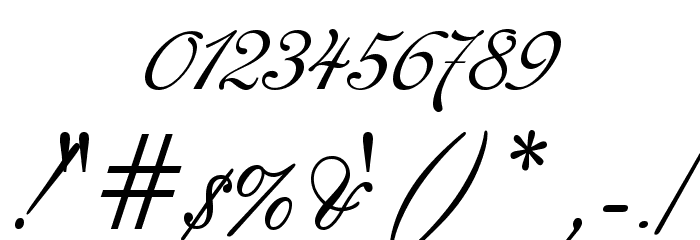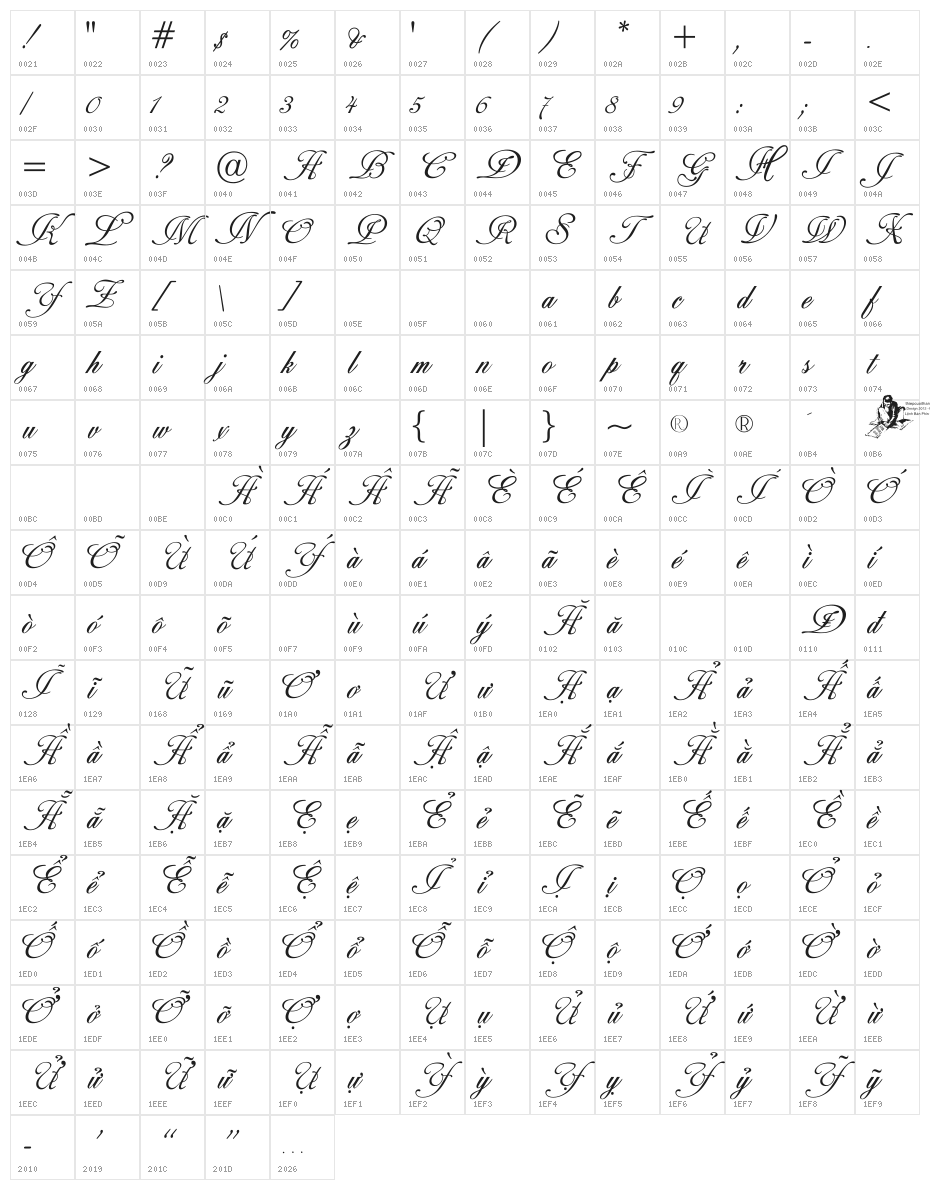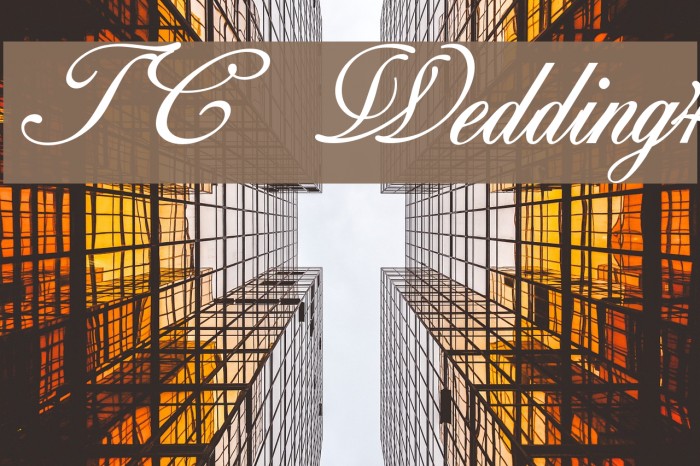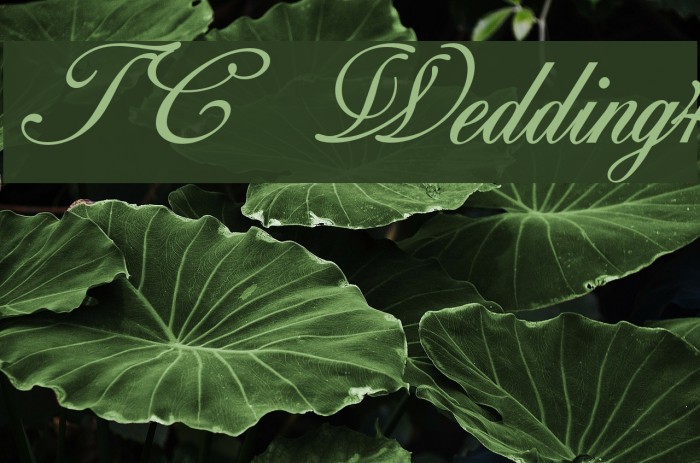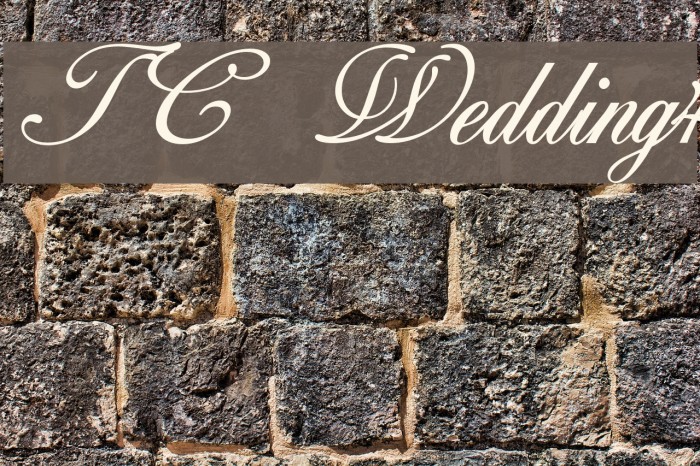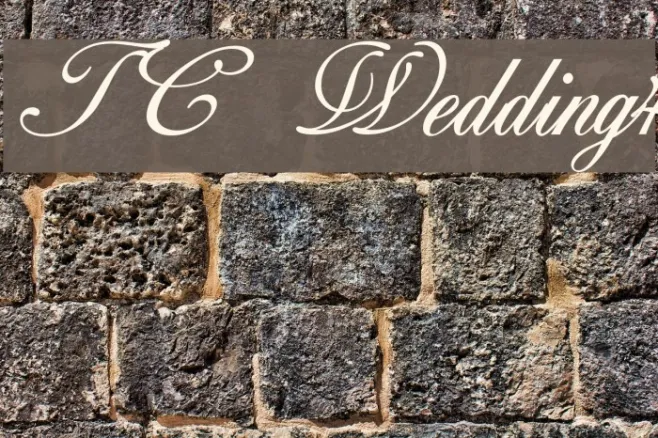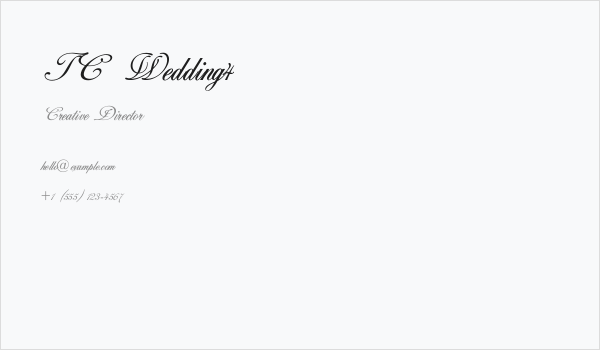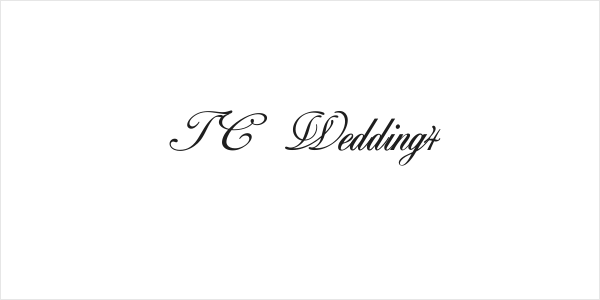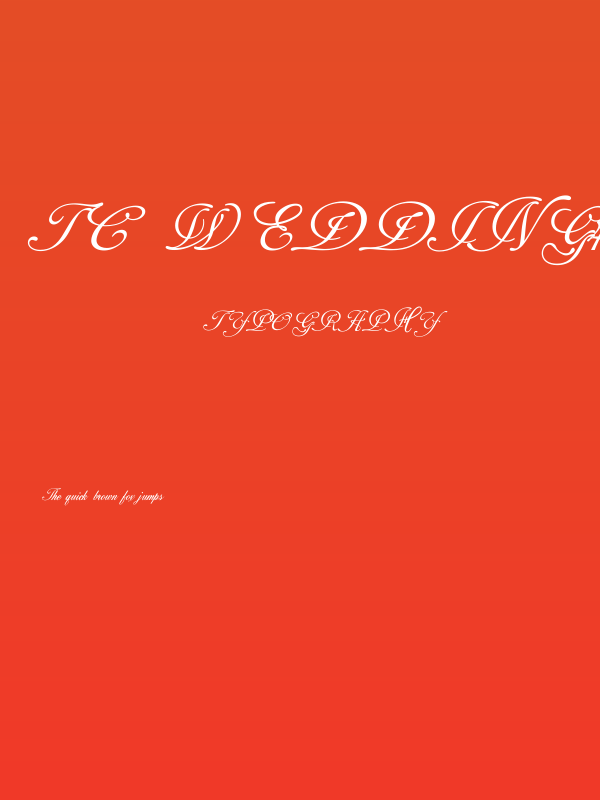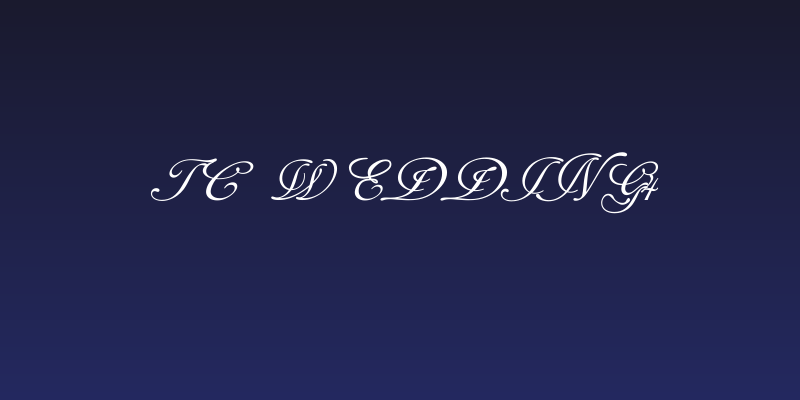
TC _Wedding4 Font
TC _Wedding4 Description
This elegant script font features a sophisticated and flowing design, characterized by its ornate and cursive letterforms. The uppercase letters are adorned with intricate swashes and flourishes, giving them a decorative and formal appearance. The lowercase letters maintain a smooth and connected style, enhancing the font's overall fluidity. The numerals and special characters are designed with the same attention to detail, ensuring consistency throughout. This font exudes a sense of luxury and refinement, making it ideal for formal occasions and high-end branding.
| Overall Style | Elegant, Formal, Decorative |
| Use Case | Headlines, Invitations, Branding |
| Proposed Projects | Ideal for wedding invitations, luxury branding, elegant stationery, and formal event programs. |